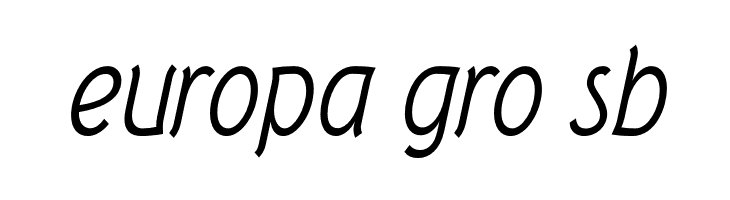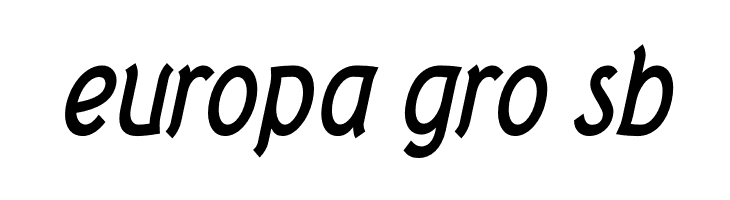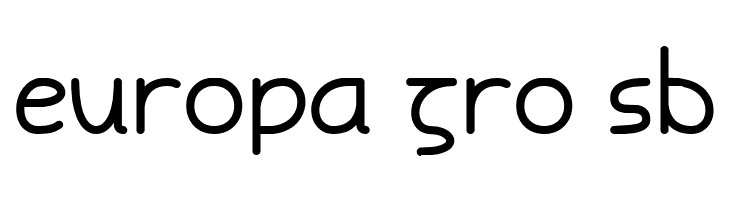
• Tin Doghouse
( Fonts by dartcanada.tripod.com - Darren Rigby )
A modern, bold sans-serif font with clean lines and excellent readability.
• Tin Doghouse Italic
( Fonts by dartcanada.tripod.com - Darren Rigby )
A modern italic font with dynamic curves and a sleek, energetic style.
• Tinsnips-Regular
A bold, stencil-like font with an industrial, mechanical aesthetic.
• Tinsnips-Regular
A bold, playful font with characters on individual blocks, resembling cut-out letters.
• Titanick Display NF
A bold, geometric font with Art Deco influences and high contrast.
• TitanickDisplayNF
A bold, geometric font with strong vertical lines and angular shapes.
• Tobacco Road NF
A bold, geometric font with angular elements and strong presence.
• TobinTax-Regular
A bold, decorative font with intricate Gothic-inspired details.
• TobinTax-Regular
A bold, decorative font with gothic and medieval influences, featuring intricate and ornate designs.
• TomsHand Normal
A bold, handwritten-style font with a casual and dynamic appearance.
• Tooney Noodle NF
A bold, playful font with a 3D shadow effect and cartoonish style.
• TooneyNoodleNF
A playful, bold font with cartoonish strokes and strong outlines.
• Torid
( Ruben Holthuijsen )
A modern, rounded font with a clean and approachable design.
• Torid Bold
( Ruben Holthuijsen )
A bold, rounded font with a playful and approachable style.
• Tork-Bold
A bold, geometric font with angular cuts and a modern edge.
• Tork-Bold
A bold, geometric font with sharp angles and a modern aesthetic.
• Tork-BoldItalic
A bold, italicized font with dynamic, slanted letterforms and strong visual impact.
• Tork-BoldItalic
A bold, italicized font with a dynamic, forward-leaning style.
• Tork-Italic